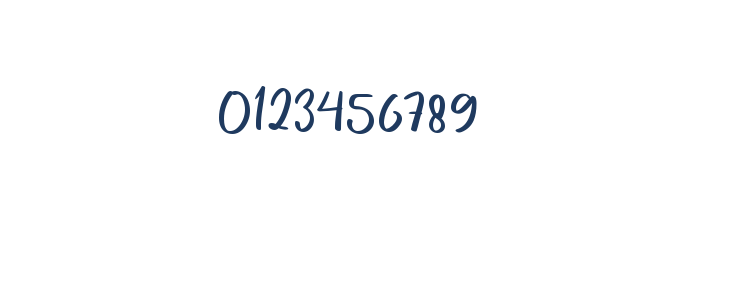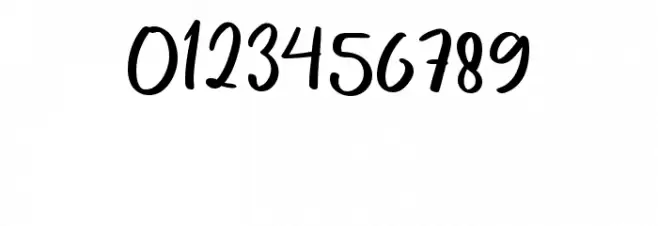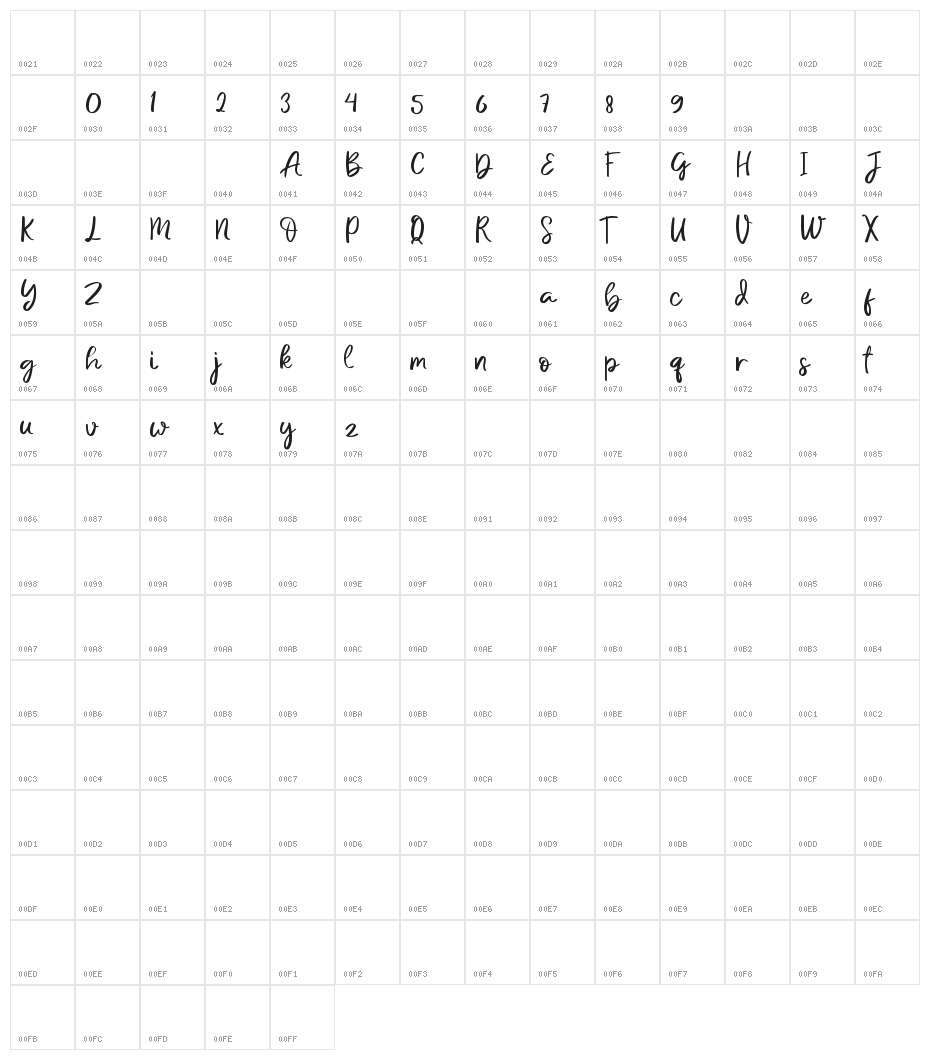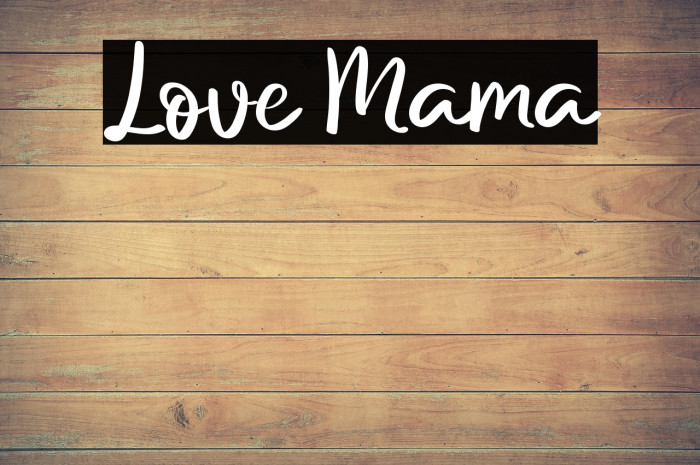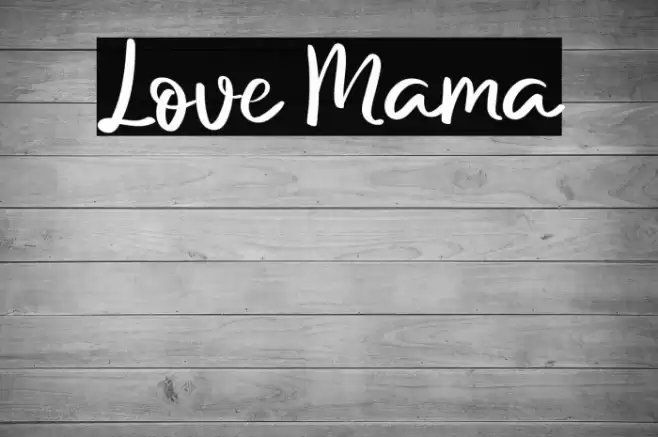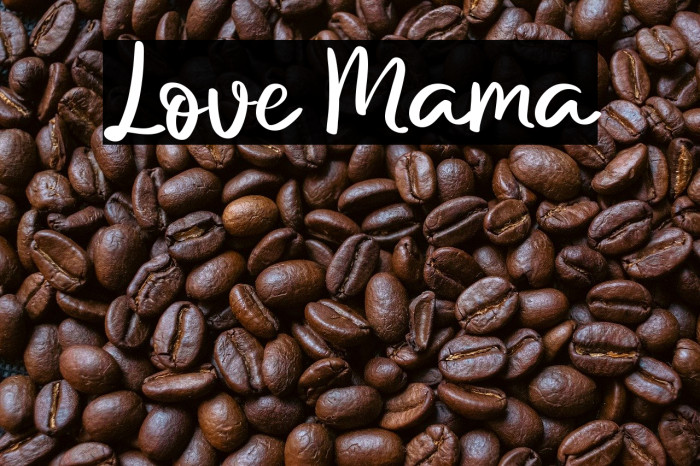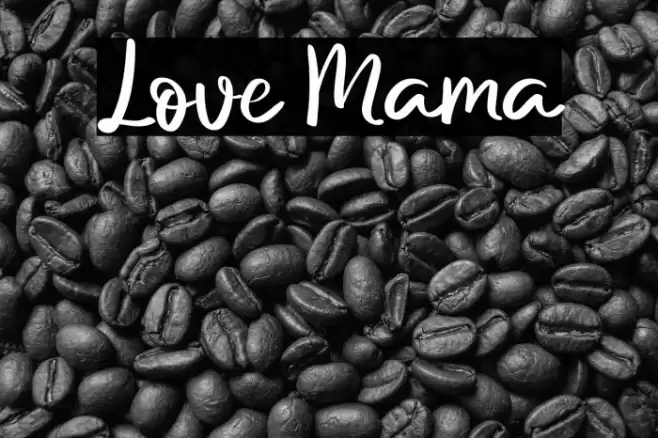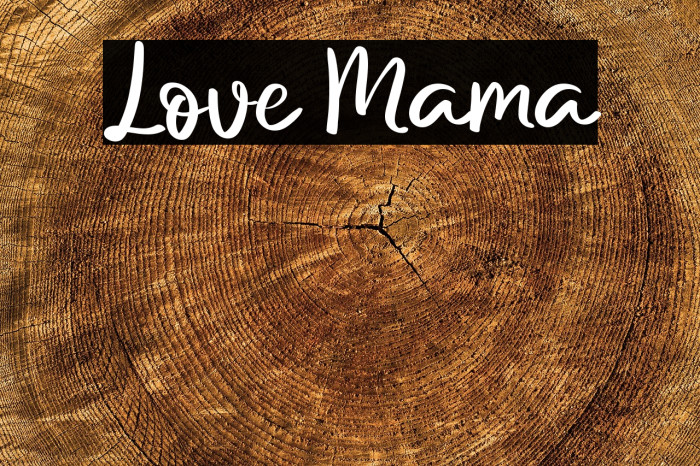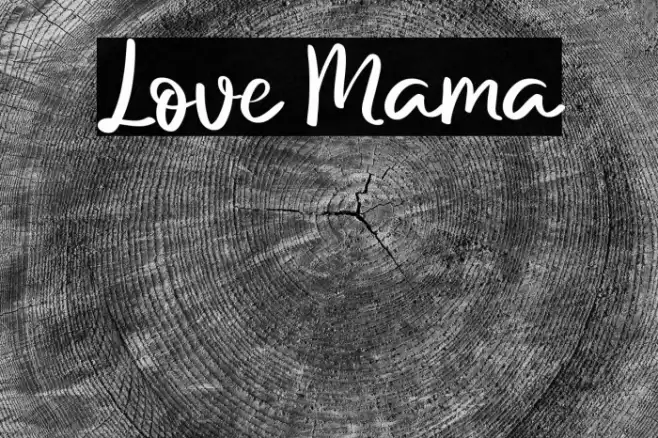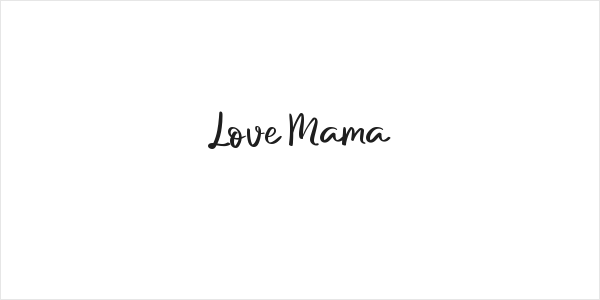
Love Mama Font
Love Mama Description
This font features a playful and casual handwritten style, characterized by its smooth, flowing curves and slightly irregular letterforms. The letters are connected in a way that mimics natural handwriting, giving it a personal and friendly feel. The uppercase letters are bold and prominent, while the lowercase letters maintain a consistent flow, enhancing readability. The numbers are clear and well-defined, matching the overall style of the alphabet. Special characters are integrated seamlessly, maintaining the font's cohesive look. This font is ideal for projects that require a touch of personality and warmth, such as invitations, greeting cards, and personal branding.
| Proposed Projects | Ideal for invitations, greeting cards, personal branding, and creative projects. |